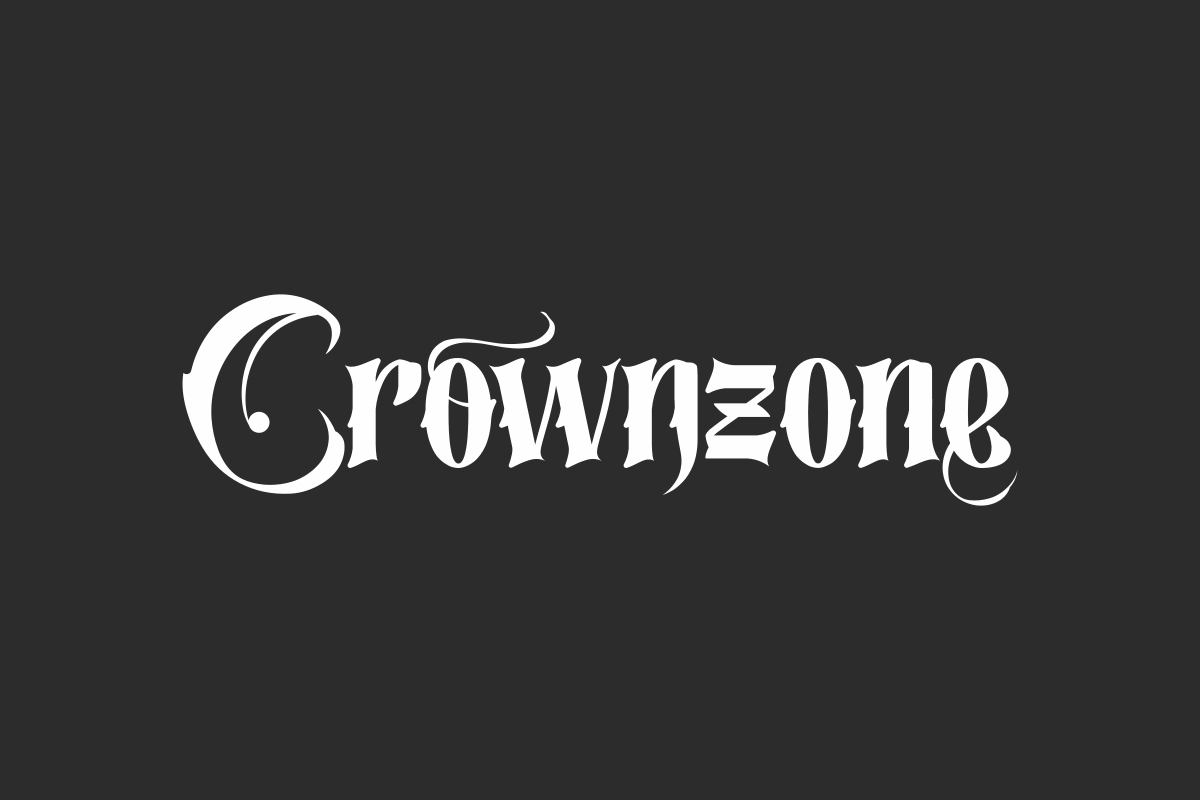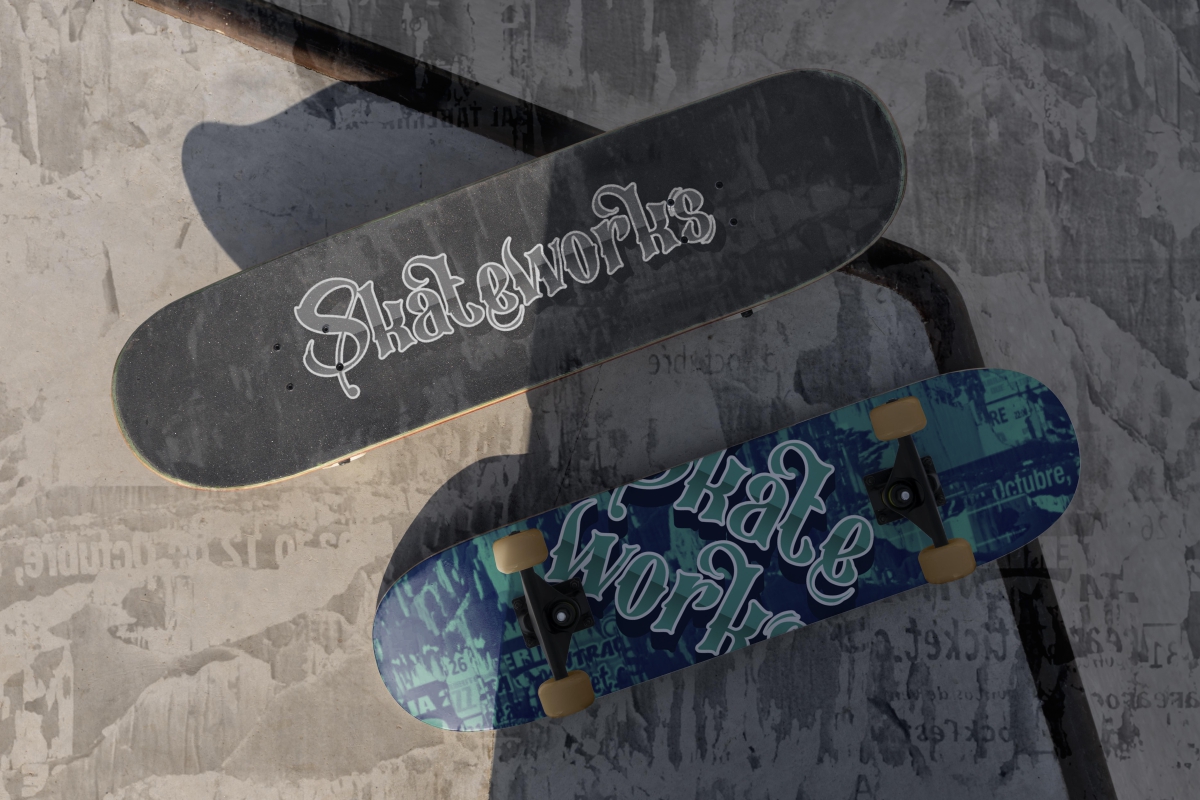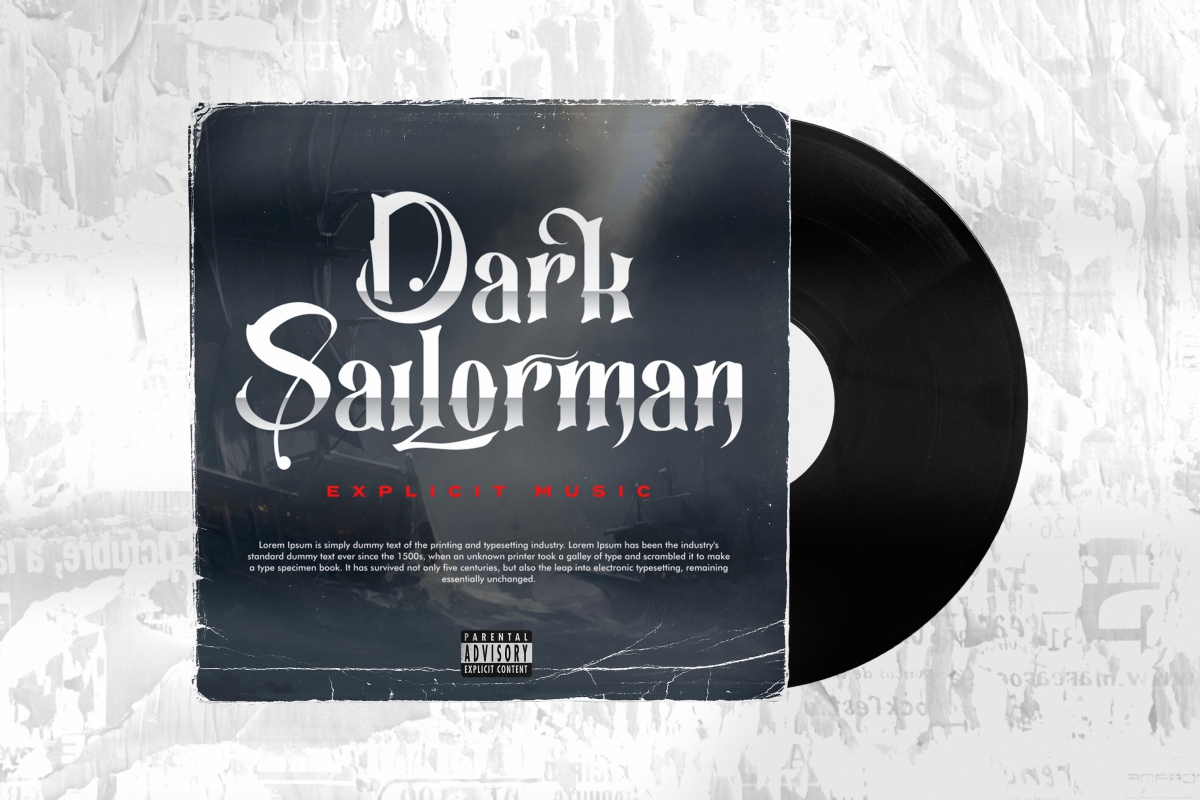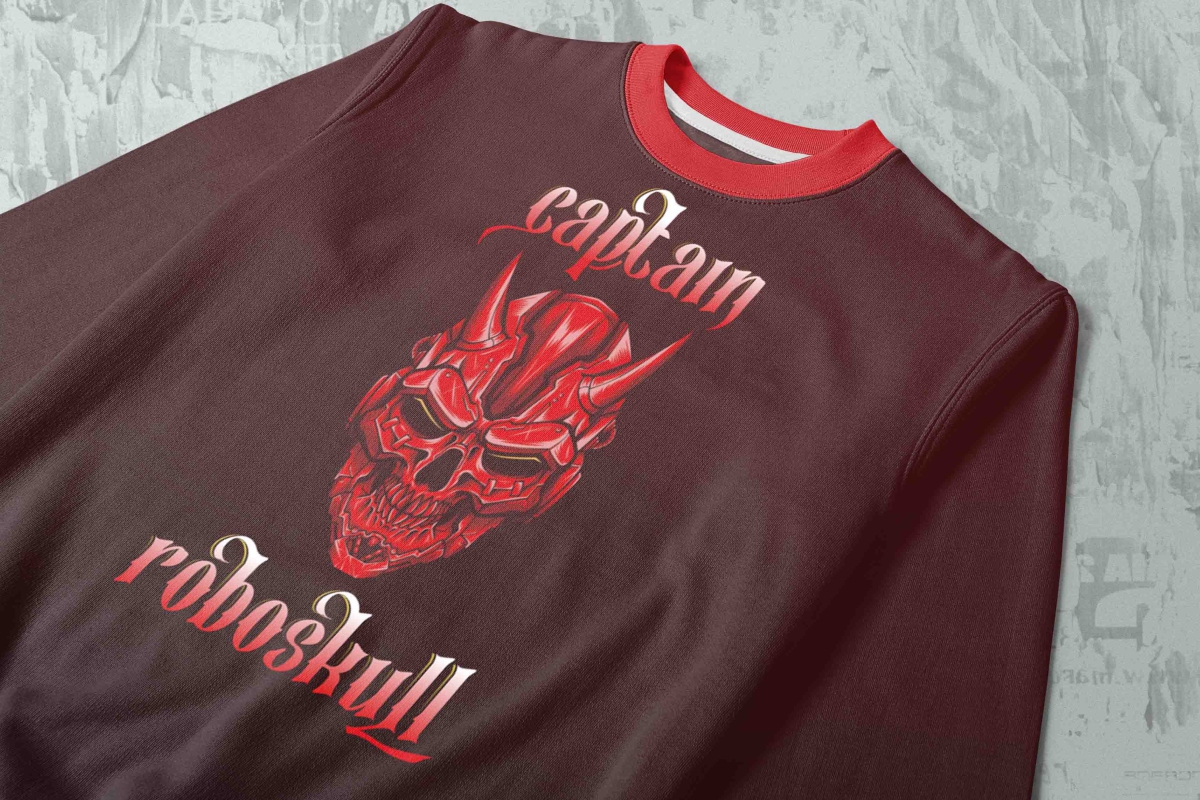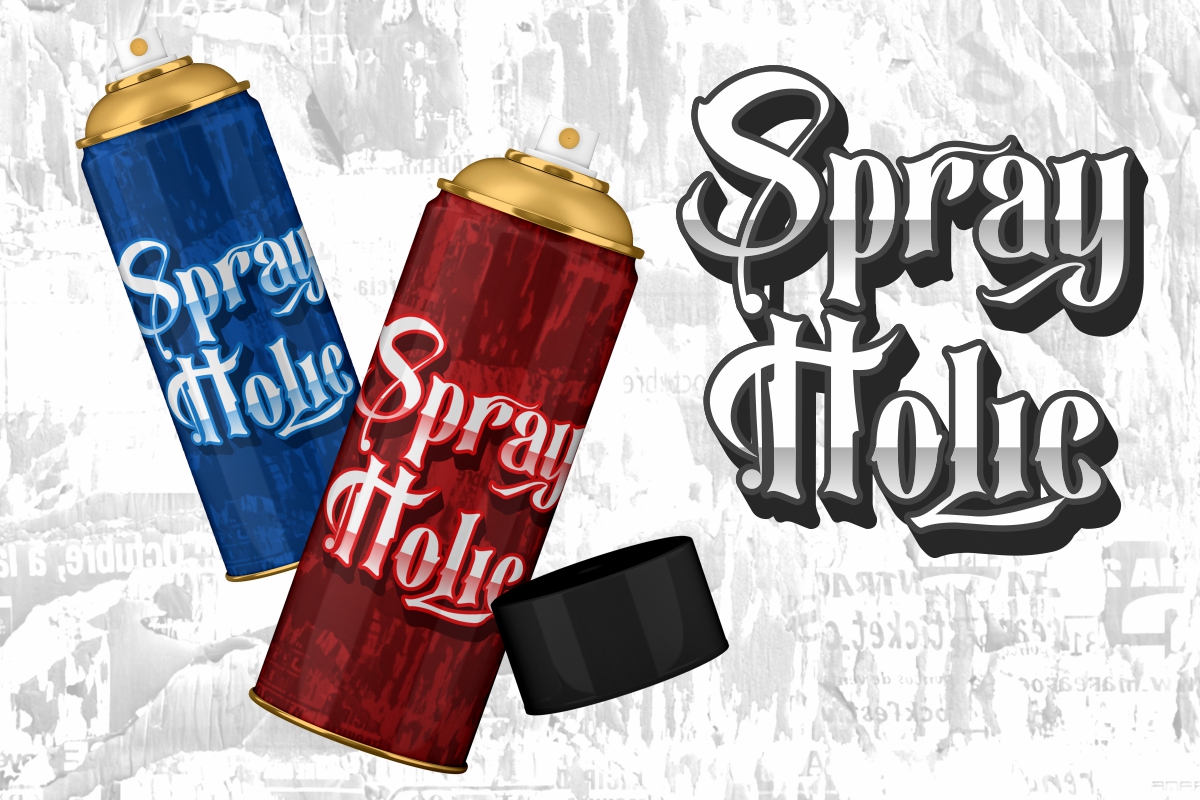
Crownzone Font
Crownzone Display Font
It’s a gothic style blackletter display font. This font is well crafted so we can make sure it looks amazing. It will be awesome for any project: artist, band, barber, fashion, logo branding, music, performer, quote, signage, singer, and many more. Be a perfect professional in a minute and start creating today!
Crownzone Font includes full set of Uppercase and lowercase Basic Characters, Numerals and Punctuation, alternative lowercase. This font is made with a spooky touch to perfectly make awesome look that add more interesting and mysterious fonts to perfect your extraordinary project.